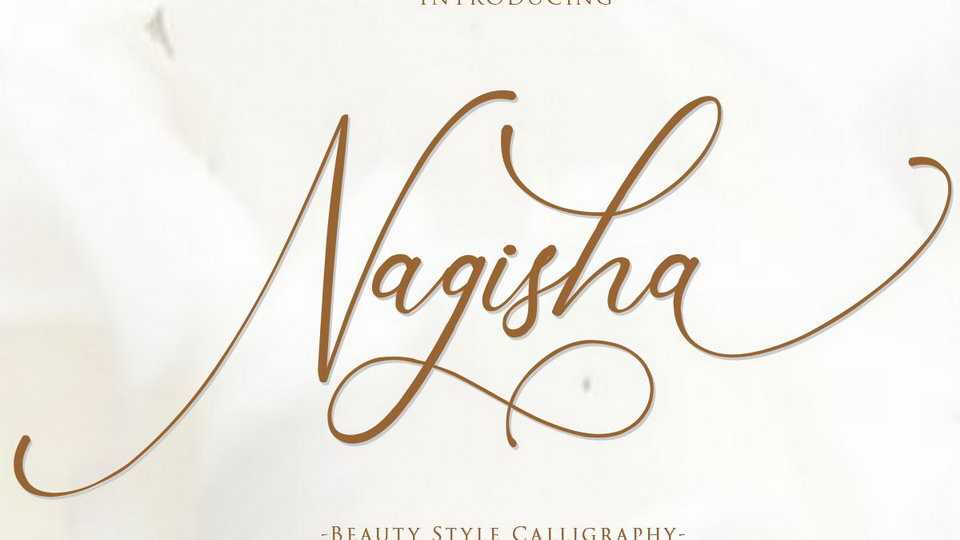
Download Nagisha font, a unique, cool and beauty stylistic calligraphy script. Nagisha’s hand look style makes perfect to use for invitation, stationery, wedding designs, social media posts, advertisements and more.
Designer: Gilar Studio